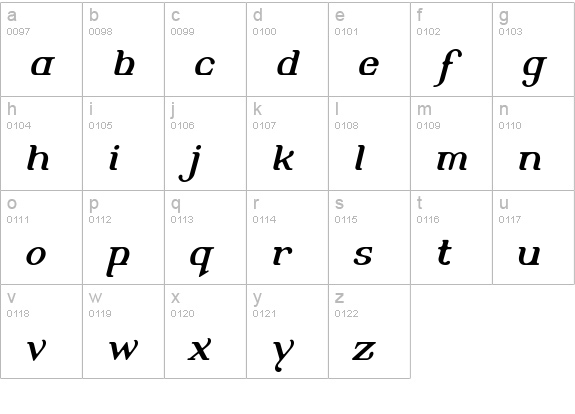
AlembicBeta-RegularItalicOne is a stylish and versatile font that exudes elegance and sophistication. Its unique italic design adds a touch of flair to any project, making it perfect for use in branding, advertising, and creative designs. The sleek curves and smooth lines of this font give off a modern and professional vibe, making it suitable for a wide range of applications. What makes AlembicBeta-RegularItalicOne even more appealing is that it is completely free to download at FontsMarket.com. This means that you can access this high-quality font without any cost, making it a valuable addition to your font collection. Whether you're a designer looking for a fresh and contemporary typeface or a business owner seeking a font that stands out, AlembicBeta-RegularItalicOne is sure to impress with its quality and versatility. Experience the elegance and creativity that AlembicBeta-RegularItalicOne has to offer and elevate your projects with this stunning font today. Download it for free at FontsMarket.com and unleash your creativity with this beautiful typeface.